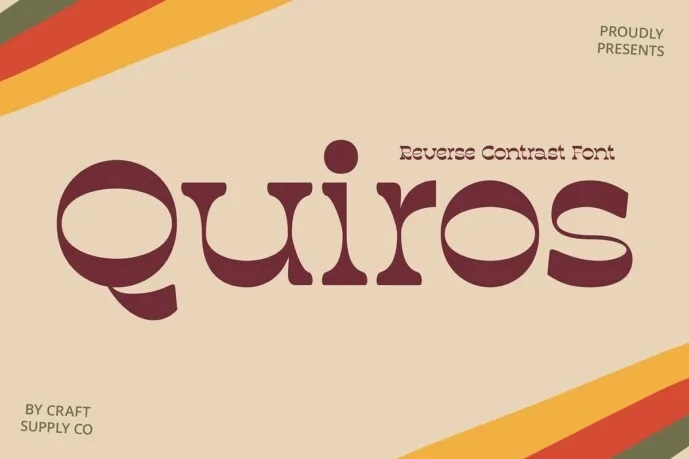
Quiros Font
Quiros is considered as a serif font with reverse contrast and has a retro vibe along with a funky funny style. Thus, it is most appropriate for designs that are intended to call attention to the originality and desire for an unconventional look. This font can prove to be something fresh and new, and give a different effect to a number of designs and styles for a dynamic and fresh appearance.
As a highly functional-font Quiros Font is perfect for postering, graphic designing, logo creation, brand identity, and much more. Its reverse contrast and retro look gives that ‘old school’ feel to your designs, which allow positioning of your designs to be different from the typical run of the mill logo or design.
Quiros Font is creative centric; with it, your designs will be appealing and stand out. When employed in either printed or electronic media this type of font helps elicit a kinetic energy that attracts the viewers’ attention. Therefore, Quiros Font can be used for any graphic design work limited to products such as music posters, logos of a modern fashion brand, and create packaging design for a new style product.
It is a retro funk style and hence your designs will always be as elegant and lively as when the concept was first developed. To the uninitiated Quiros Font is a distinctive font that you can use to launch a statement that has retro funk appeal.
Quiros Serif Font